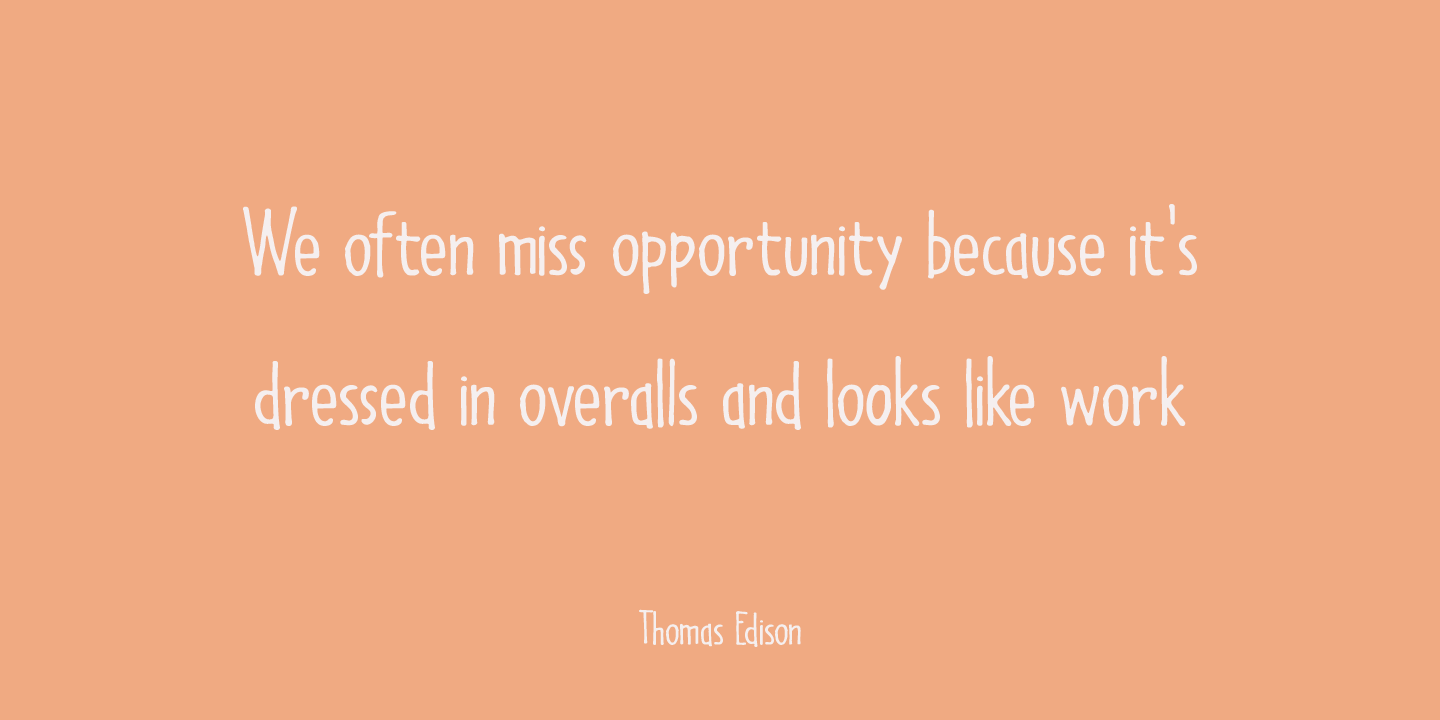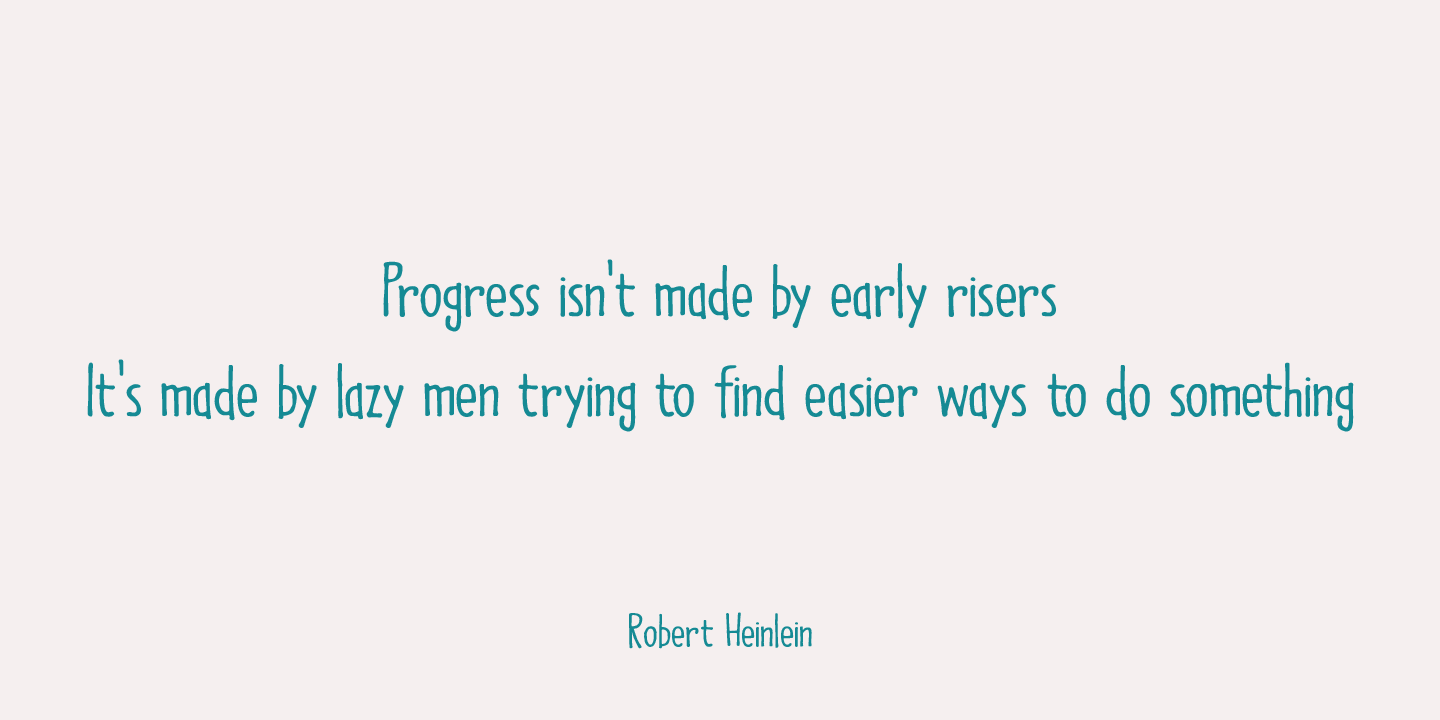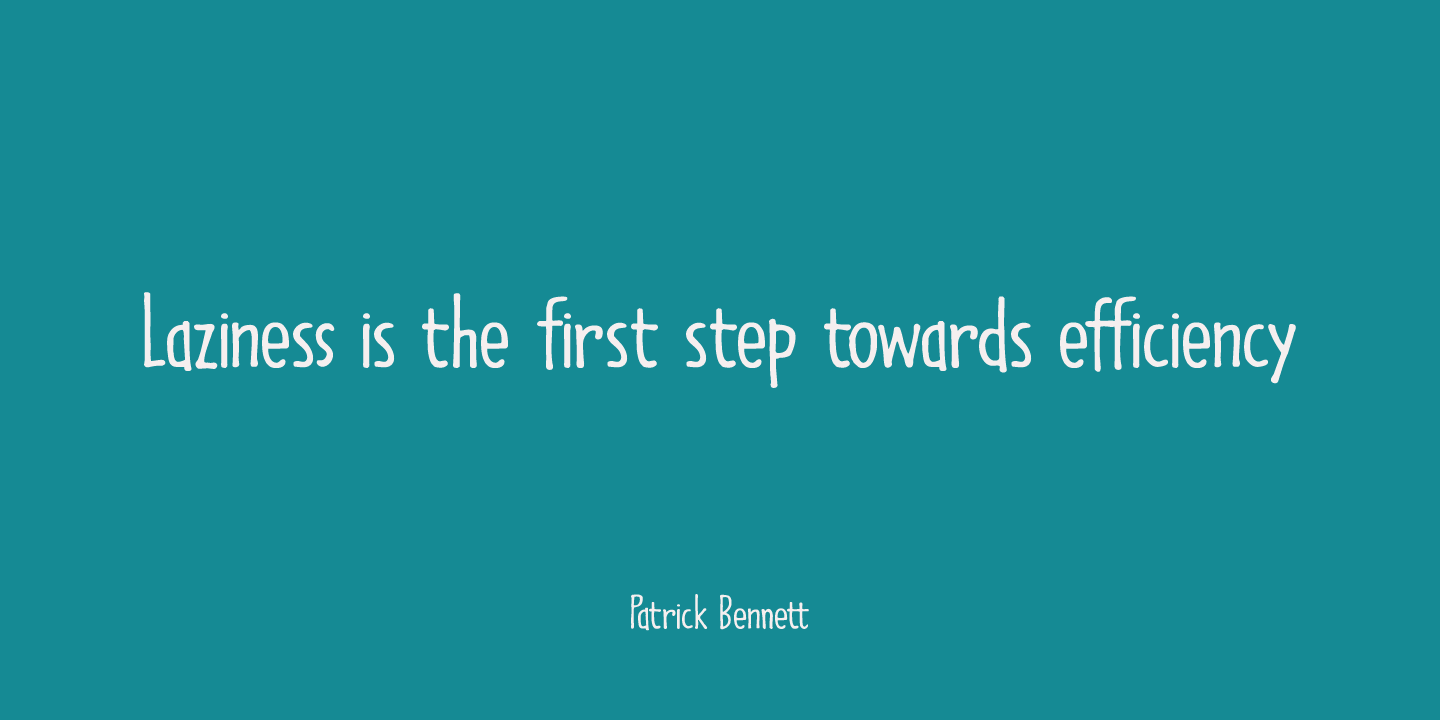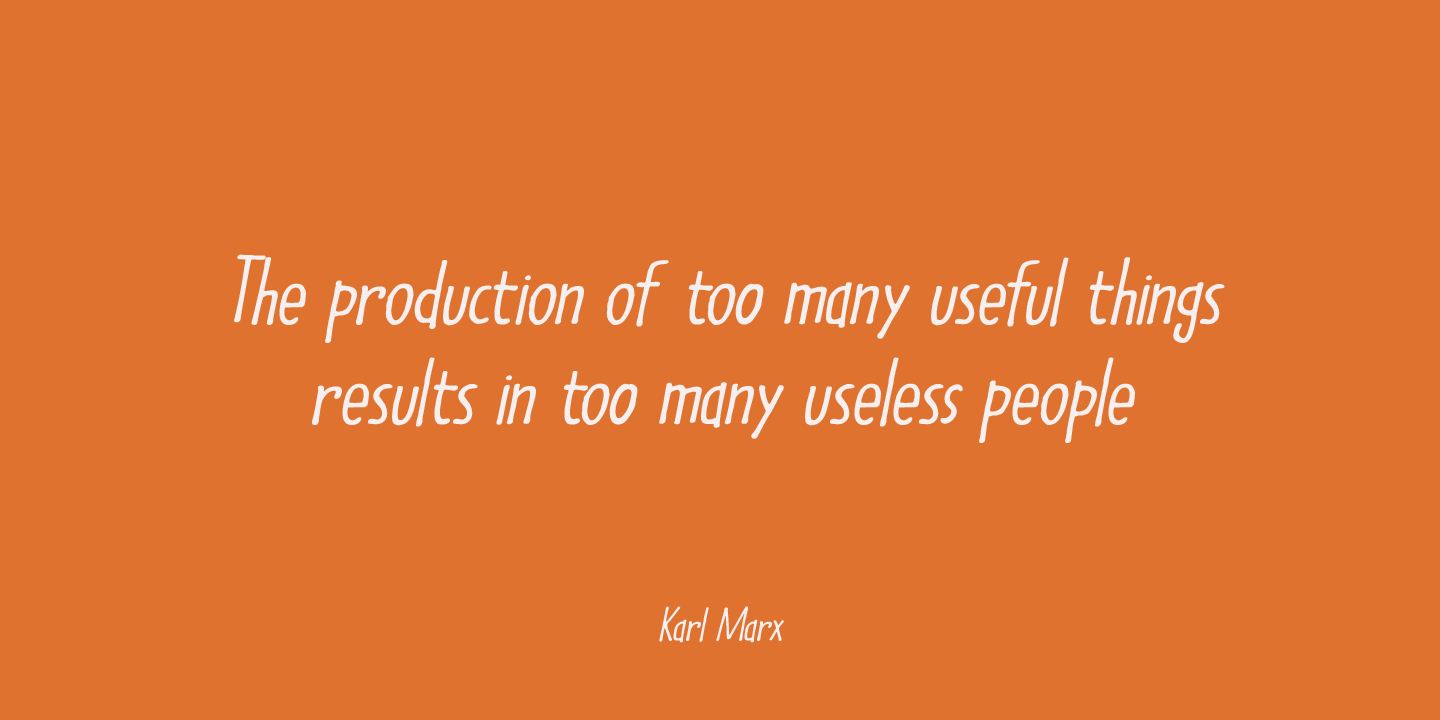
About Lazy Morning
I can\’t remember when I had a true lazy morning.. I was a looong time ago, before I had children! Even now, when I?m down with the flu, I can\’t stay in bed for too long – it really seems like a waste of time! Lazy Morning is a nice handwritten font.…